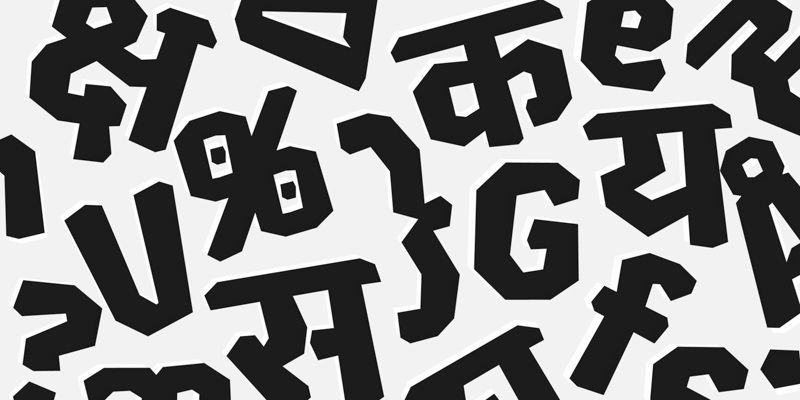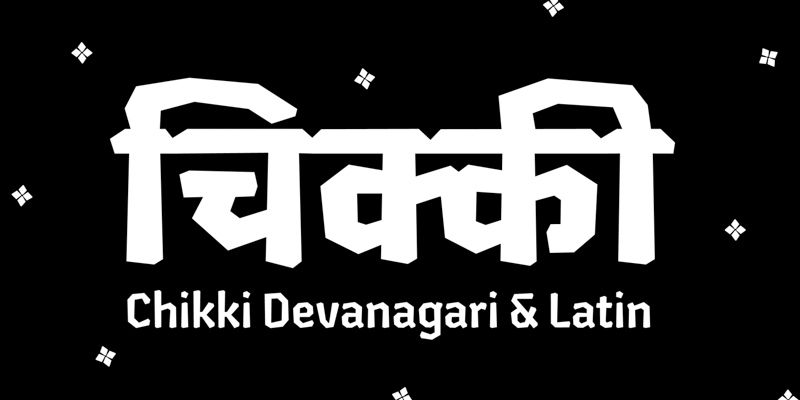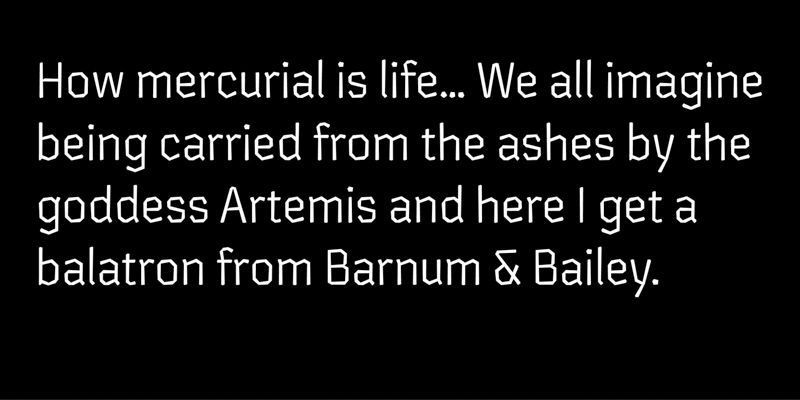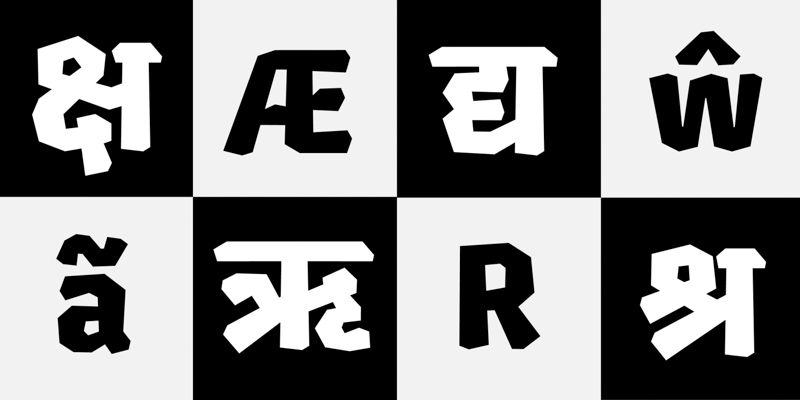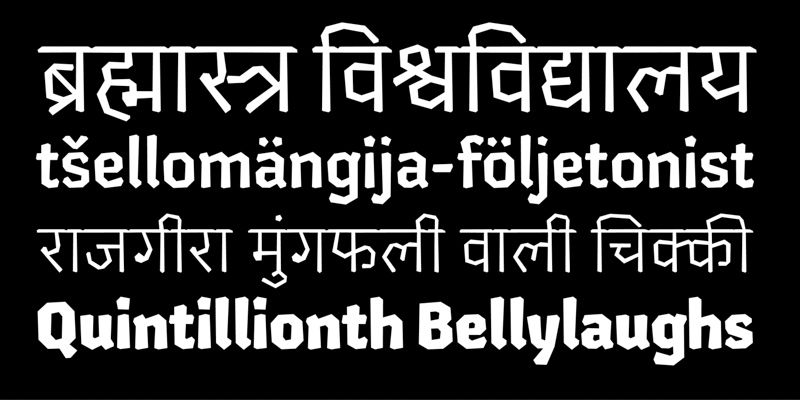
Sweet and distinctive, Chikki is a crunchy Devanagari and extended Latin type family that brings a fresh geometric approach to both scripts. Its most striking feature is the replacement of traditional curves with straight lines and softened corners, creating a uniquely angular yet approachable texture.
The six weights range from a nearly monolinear Light to a subtly contrasted Black, providing excellent typographic flexibility for both display and text settings. While primarily designed for headlines, Chikki’s letterforms and spacing have been carefully refined to maintain legibility even at smaller sizes, making it a versatile choice for projects requiring distinctive multilingual typography.